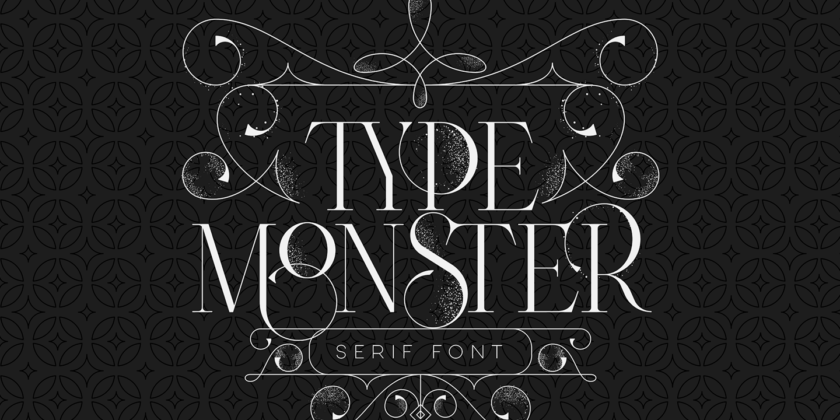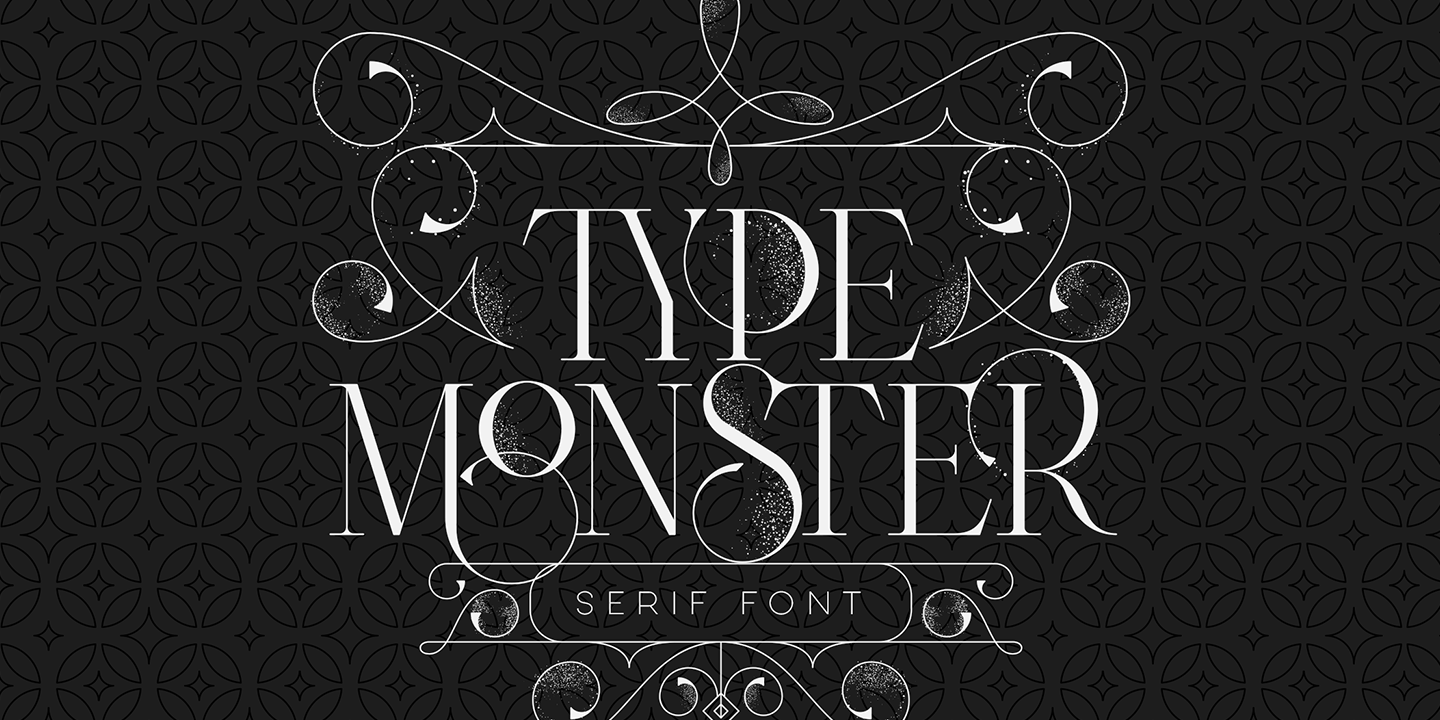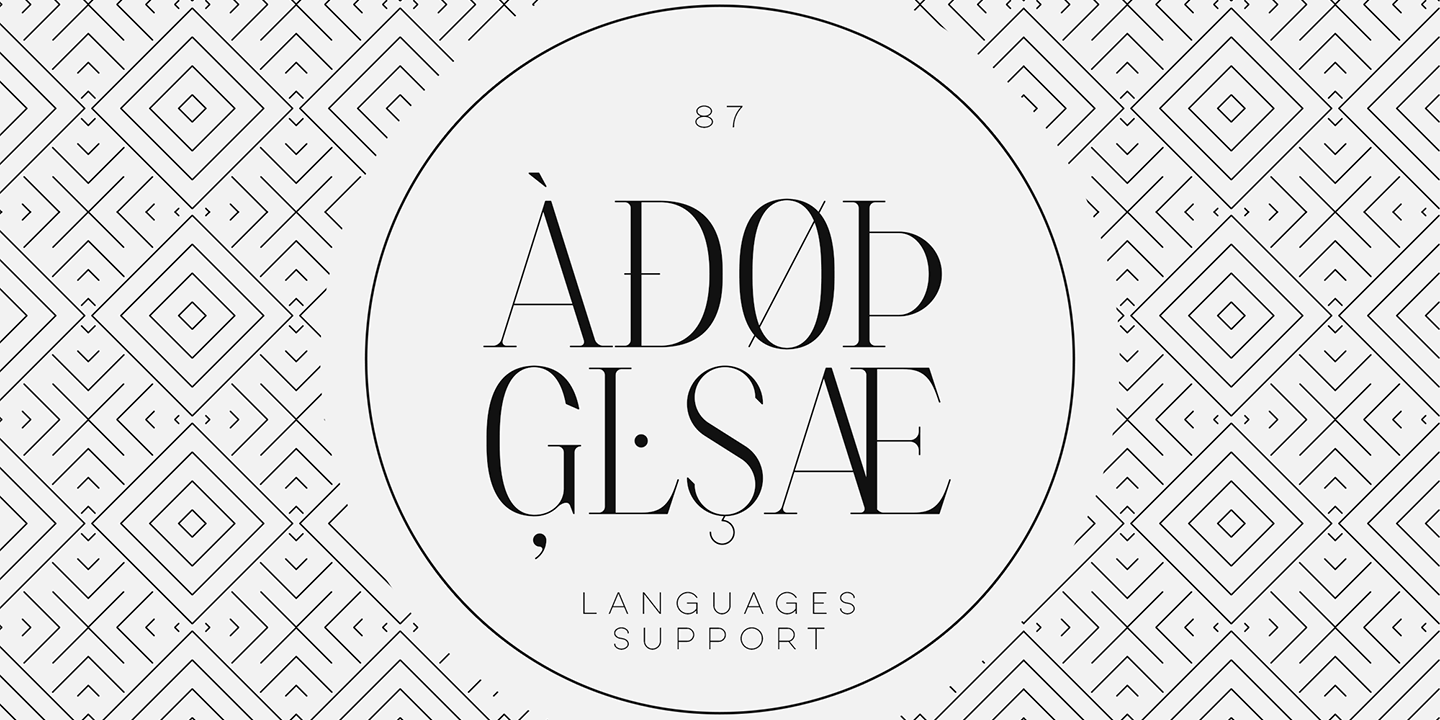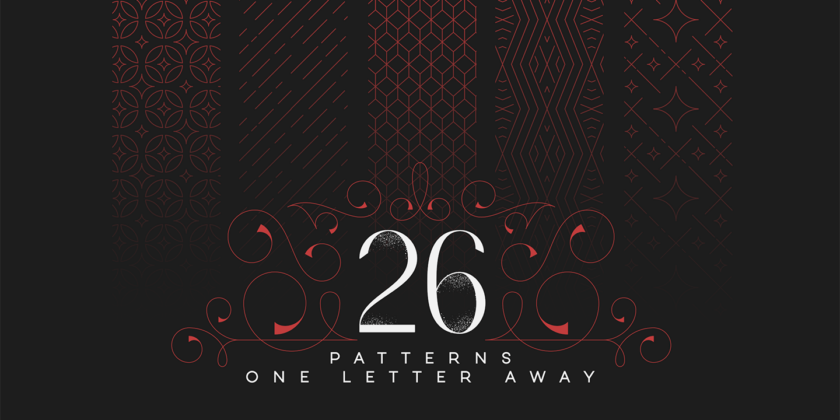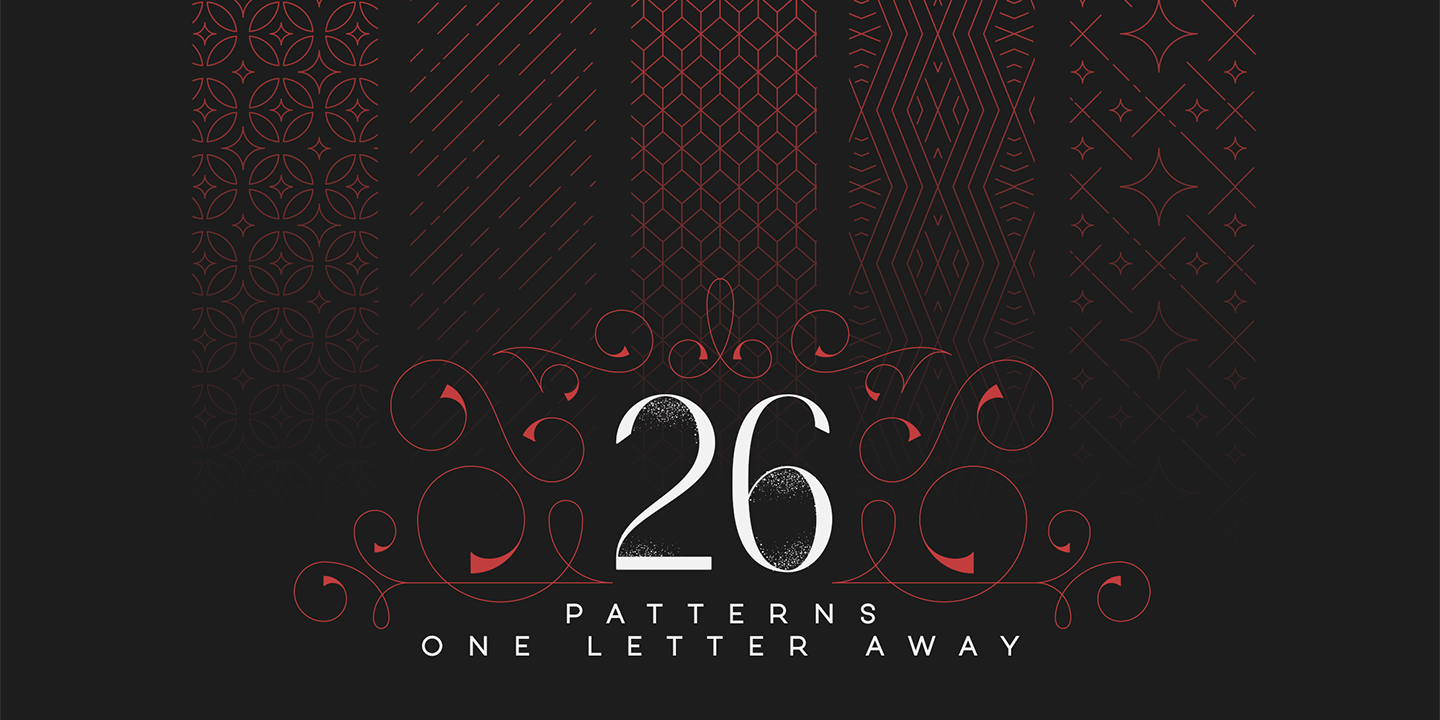
About Type Monster
"Type Monster" is a sophisticated serif font that offers a versatile blend of classic style and modern artistry, making it an excellent choice for a wide range of design projects. This typeface is meticulously crafted with 114 ligature glyphs…